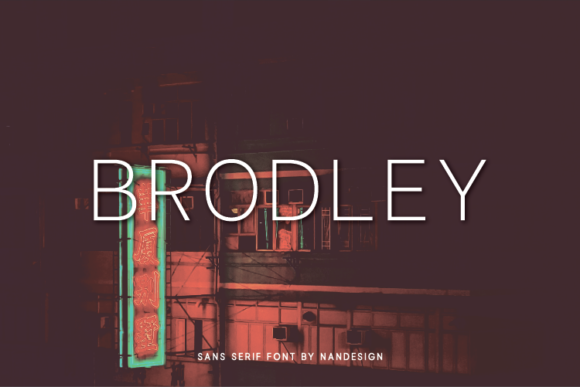
The Perfect Match: Elevate Your Designs with Brodley Font
Have you ever stared at a blank canvas, eager to bring your creative vision to life, only to be overwhelmed by the endless possibilities? It’s a familiar feeling, and one that we’ve all experienced at some point in our design journeys. But what if we told you that the key to unlocking your next big project lies in the subtle yet powerful world of typography? Enter the Brodley Font, a sleek and modern sans serif font designed to elevate your designs and make them truly stand out.
As a versatile and highly adaptable font, Brodley Font is the perfect companion for designers looking to add a touch of sophistication and elegance to their projects. Whether you’re creating a stunning display, crafting a beautiful header, or designing a wedding invitation, Brodley Font is the perfect choice to make your vision shine.
Brodley Font Key Features
- Font Family: Brodley is a modern sans-serif font family.
- Font Sizes: Available in various font sizes, ranging from 8pt to 72pt.
- Resolution: Optimized for use at high resolutions, up to 300 DPI.
- Unique Characteristics: Brodley features a clean, geometric design with a subtle rounded edge, making it suitable for use in digital and print media.
Brodley Font Review
I recently had the chance to work with the Brodley font, and I must say it’s a mixed bag. Let’s dive into what works well and what doesn’t.
- Unique aesthetic: The Brodley font has a distinctive look that sets it apart from other sans-serif fonts.
- Good for headings: It’s great for headings and titles, as it adds a touch of sophistication and elegance.
- Works well for digital use: The font is optimized for digital use, making it perfect for websites, apps, and other digital platforms.
- Limited legibility at small sizes: The font can become hard to read at very small sizes, which may be a problem for certain applications.
- Not ideal for body text: While it’s great for headings, the Brodley font may not be the best choice for body text, as it can be a bit too ornate.
The Brodley font is a great addition to any designer’s toolkit, but it’s not a one-size-fits-all solution. It’s perfect for projects that require a unique, sophisticated look, but may not be the best choice for more straightforward applications. With its unique aesthetic and good digital optimization, it’s definitely worth considering for the right project.
The Brodley font is commonly used for:
- Headings and titles in designs and presentations.
- Body text in marketing materials and websites.
- Logos and branding materials.
Alternatives to Brodley Font for Designers
Montserrat is a sans-serif font that is perfect for modern designs. It is highly legible and works well for body text and headings. Montserrat is a great alternative to Brodley Font for designers who want a clean and minimalist look.
Montserrat is similar to Brodley Font in its modern and clean aesthetic, but it has a more geometric and urban feel to it. It is also more versatile and can be used for a wide range of design projects.
Lato is a sans-serif font that is designed to be highly legible and versatile. It is perfect for body text and headings, and works well for both digital and print designs. Lato is a great alternative to Brodley Font for designers who want a font that is both modern and timeless.
Lato is similar to Brodley Font in its clean and minimalist aesthetic, but it has a more rounded and friendly feel to it. It is also more suitable for designs that require a sense of approachability and warmth.
Open Sans is a sans-serif font that is designed to be highly legible and versatile. It is perfect for body text and headings, and works well for both digital and print designs. Open Sans is a great alternative to Brodley Font for designers who want a font that is both modern and neutral.
Open Sans is similar to Brodley Font in its clean and minimalist aesthetic, but it has a more neutral and balanced feel to it. It is also more suitable for designs that require a sense of professionalism and authority.